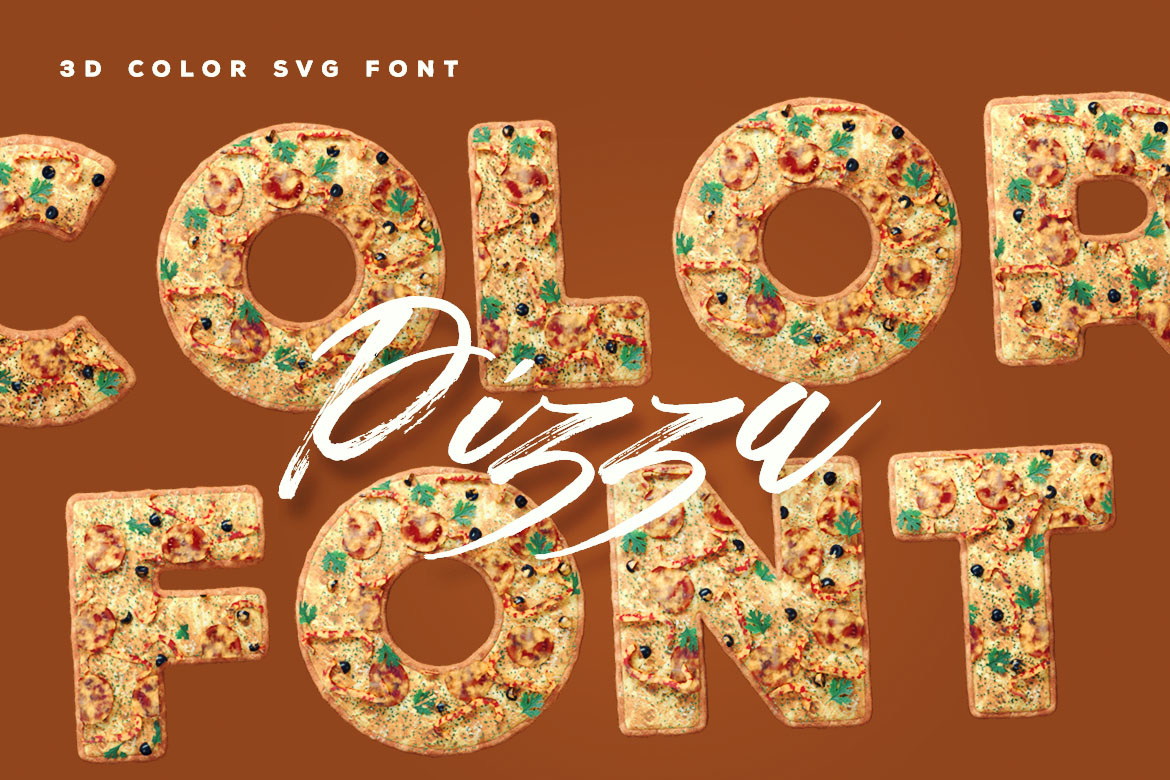
Pizza Color Font
Pizza Color Font is perfect for pizzeria branding, Italian restaurant signage, food delivery apps, casual dining menus, food truck graphics, pizza packaging design, culinary marketing materials, and appetizing food advertising campaigns.
Pizza Color Font is exciting because it delivers mouth-watering visual appeal with vibrant color elements and playful letterforms that evoke the delicious comfort and social joy of sharing pizza. Its appetizing character creates immediate cravings and warm associations that perfectly capture the irresistible appeal of freshly baked pizza and Italian culinary tradition.
Pizza Color Font family includes full-color variations with pizza-inspired decorative elements and Italian culinary symbols, providing designers with comprehensive options for creating delicious typography solutions that project authentic Italian flavor and food quality.
Creative professionals consistently select Pizza Color Font for projects requiring culinary authenticity and food-themed visual impact. Its appetizing character works magnificently in pizza restaurants, food delivery platforms, culinary marketing, and Italian dining venues where visual temptation and authentic presentation drive customer appetite. The font's delicious nature creates memorable brand experiences that celebrate the universal love of pizza and Italian culinary heritage.
Design teams appreciate Pizza Color Font's ability to communicate culinary authenticity and food excellence in competitive restaurant markets. Its appetizing styling transcends traditional food typography while maintaining the delicious appeal required for culinary positioning, making it an essential tool for organizations seeking to establish irresistible connections through superior pizza typography and exceptional food communication.